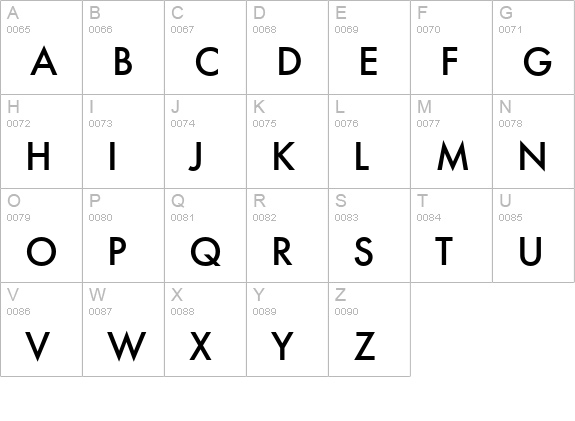
PT FuturaFuturis Medium Cyrillic Font Details
PT FuturaFuturis Medium Cyrillic is a balanced, medium-weight variant in the PT typeface family \xE2\x80\x94 well suited to sub-headlines, navigation, and balanced editorial work.
PT FuturaFuturis Medium Cyrillic is a versatile and modern typeface that combines clean lines with a touch of elegance. This font is perfect for a wide range of design projects, from branding to editorial layouts. Its medium weight strikes the perfect balance between readability and style, making it ideal for both headlines and body text. What makes PT FuturaFuturis Medium Cyrillic even more appealing is that it is available for free download at FontsMarket.com. This means you can easily access this high-quality font to enhance your projects without any additional cost. With its Cyrillic characters included, this font is a great choice for multilingual designs that require a sophisticated and contemporary look. Overall, PT FuturaFuturis Medium Cyrillic is a must-have font for designers looking to add a touch of modern flair to their work. Download it for free today and elevate your designs with this sleek and stylish typeface.